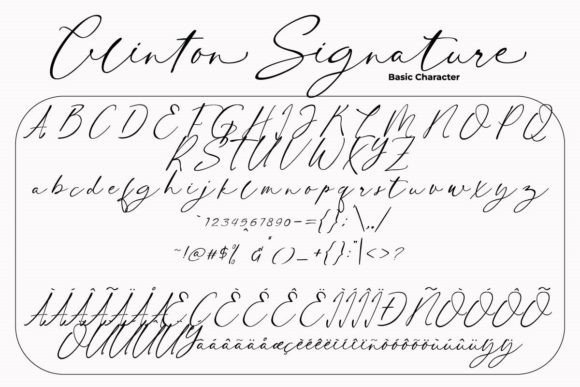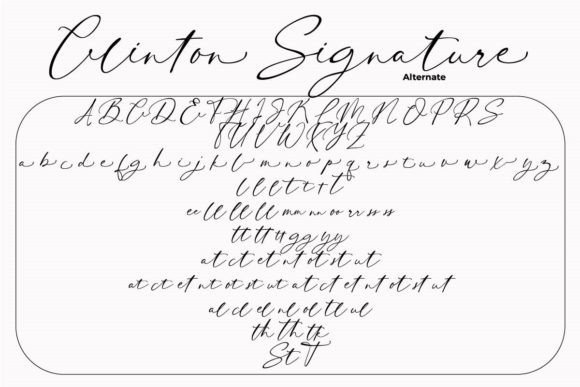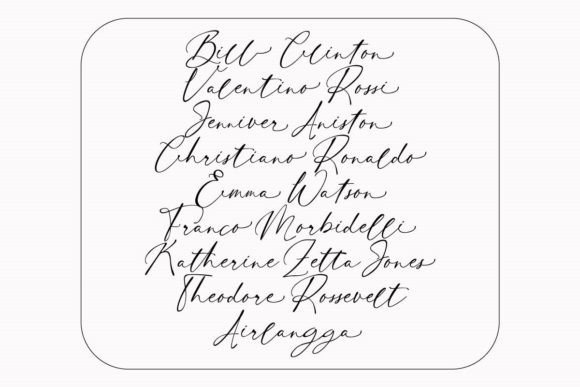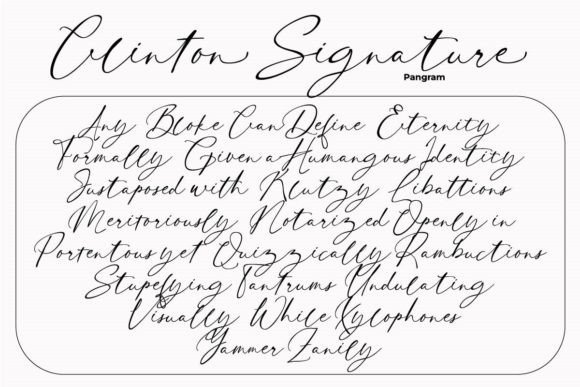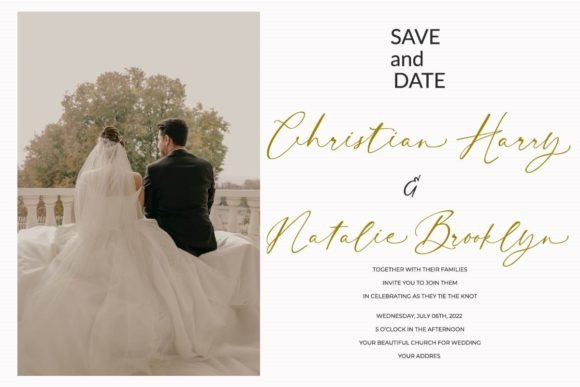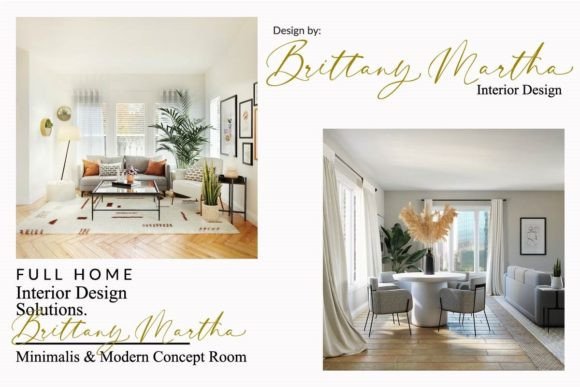
Introducing Clinton Signature Font: Elevate Your Designs with Elegance and Class
In the world of typography, a font can make or break the aesthetic of a design. For crafters, designers, and artists, finding the perfect font that embodies elegance and sophistication is a constant quest. This is where Clinton Signature Font comes into play – a lovely and delicate script font that exudes refinement and poise. In this article, we’ll dive into the features and benefits of Clinton Signature Font, and explore how it can elevate your designs to new heights.
A Font Crafted with Elegance in Mind
Clinton Signature Font is a meticulously crafted script font that boasts a unique blend of classic and modern elements. Its delicate strokes and fluid connections make it an ideal choice for designs that require a touch of sophistication. Whether you’re working on a wedding invitation, a branding project, or a digital platform, Clinton Signature Font is sure to impress.
One of the standout features of Clinton Signature Font is its PUA (Private Use Area) encoding. This means that you can access all the glyphs and ligatures with ease, giving you greater flexibility and creative control over your designs. With PUA encoding, you can effortlessly navigate through the font’s extensive character set, including alternates, swashes, and other special characters.
Clinton Signature Font is an incredibly versatile font that can be used across a range of design applications. Here are a few ideas to get you started:
- Wedding Invitations and Stationery: Add a touch of romance and elegance to your wedding designs with Clinton Signature Font.
- Branding and Packaging: Use Clinton Signature Font to create sophisticated logos, labels, and packaging that exude refinement and poise.
- Digital Platforms: Elevate your website, social media, or blog with Clinton Signature Font, perfect for headings, titles, and other display text.
- Crafting and Scrapbooking: Add a personal touch to your crafting and scrapbooking projects with Clinton Signature Font, ideal for journaling, titles, and other creative elements.
Why Choose Clinton Signature Font?
With so many fonts available, why choose Clinton Signature Font? Here are a few compelling reasons:
- Elegant and Refined: Clinton Signature Font boasts a unique blend of classic and modern elements, making it perfect for designs that require sophistication and poise.
- Easy to Use: With PUA encoding, accessing glyphs and ligatures is a breeze, giving you greater creative control over your designs.
- Versatile: Clinton Signature Font can be used across a range of design applications, from wedding invitations to branding and digital platforms.
- High-Quality: Clinton Signature Font is crafted with attention to detail, ensuring a high-quality font that will elevate your designs.
In conclusion, Clinton Signature Font is a stunning script font that embodies elegance and class. With its delicate strokes, fluid connections, and PUA encoding, it’s the perfect choice for designers and crafters looking to elevate their designs. Whether you’re working on a wedding invitation, branding project, or digital platform, Clinton Signature Font is sure to impress. So why wait? Discover the beauty of Clinton Signature Font and take your designs to new heights.